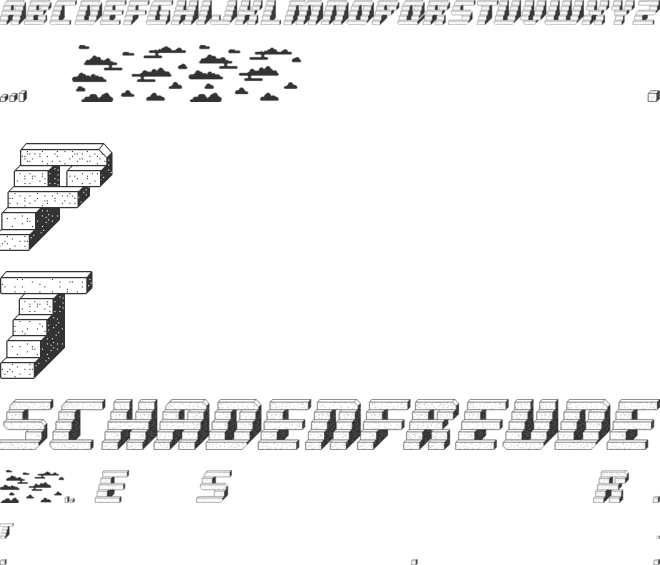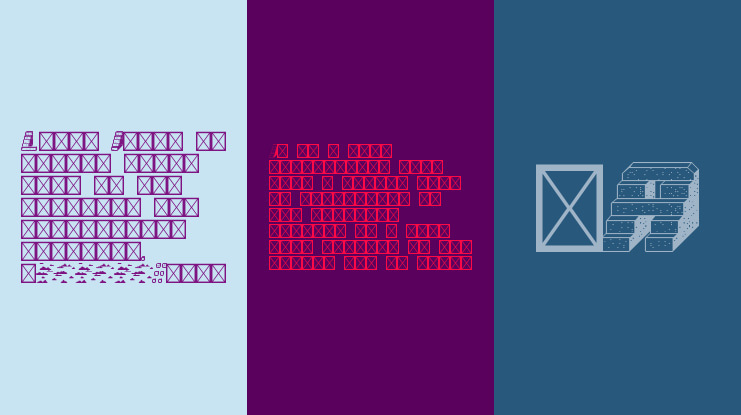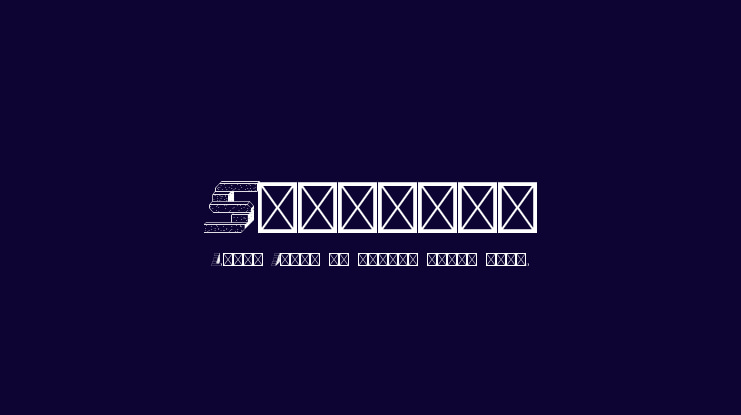
Stepwyze Font
So this was made into an actual game. The font was sketched out a while ago, but after the GameComp started, I thought it would adapt well to transforming into one of those infinite jumper games popular on mobile devices. Instead I let it become a right to left scroller with the player jumping through words that actually say something. It's somewhat meta in that the player has to navigate the platform and make sense of the words at the same time. Simple to play. Try not to stumble over your words as you go about your business and time flies by. Just like in real life. The game is just a proof of concept and not at all near completed. I'll probably just post what I have to show it in motion. 11.26.14